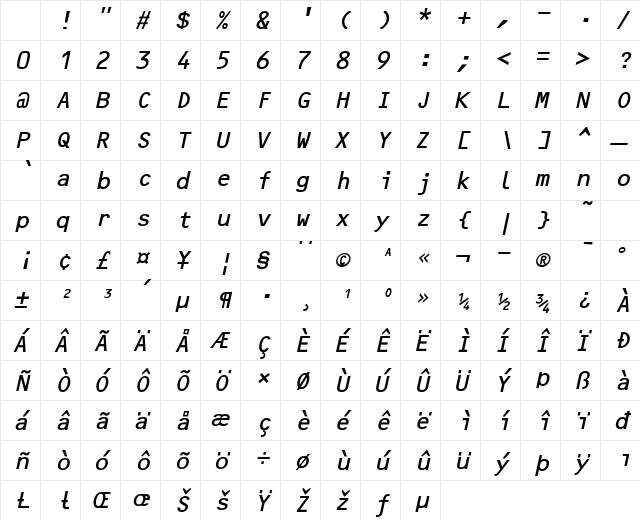
MicroscanB is a composed and adaptable typeface that performs quietly and consistently across a wide range of design contexts. The slanted form adds forward momentum and visual energy.